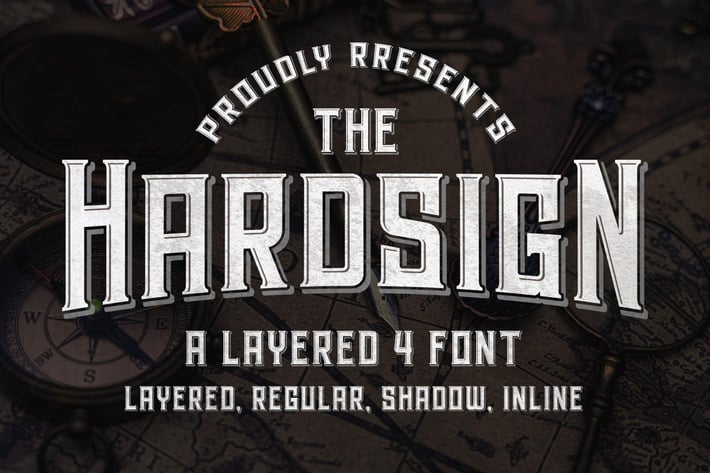
Hardsign - Layered Font
Introducing of our new product the name is Hardsign, Hardsign is vintage serif layered font inspired by label beer and vintage signage, Braynerd is all caps font is good for branding, Packaging, poster, headline, book cover, Flyer, t-shirt design and any more.
MULTILINGUAL ACCENT :
ØÆøæ¢ÐŒœÁĂÂÀÄĄÅÃǼĆČÇĈĊĎÉĔĚÊËĖÈĘĞĜĢĠĤÍĬÎÏİÌĮĨĴĶĹĽĻĿŃŇŅÑÓŎÔÖÒŐǾÕŔŘŖŚŠŞŜȘŤŢÚŬÛÜÙŰŲŮŨẂŴẄẀÝŶŸỲŹŽŻáăâäàąåãǽćčçĉċďéĕěêëėèęğĝģġĥíîïìįĩĵķĺľļŀńʼnňņñóŏôöòőǿõŕřŗśšşŝșťţŭûüűùųůũẃŵẅẁýŷÿỳźžż